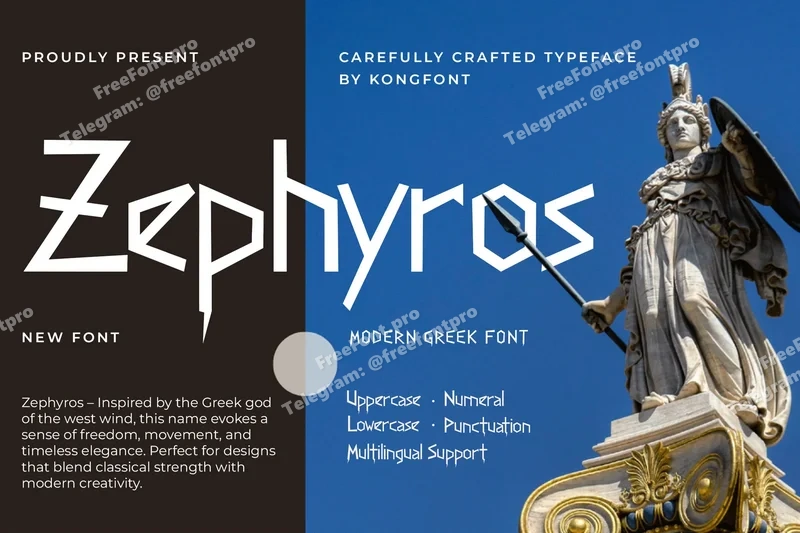
Zephyros – Modern Greek Font
Introducing Zephyros, a modern Greek font that captures the timeless beauty of ancient Greek lettering while infusing it with a sleek, contemporary touch. Inspired by the elegance of classical inscriptions and the sophistication of modern typography, Zephyros offers a refined and versatile design perfect for a variety of creative projects.
Its clean lines, balanced geometry, and subtle curves make Zephyros ideal for branding, editorial layouts, posters, and cultural designs. Whether used for titles, logos, or elegant text compositions, this font evokes a sense of heritage and artistry while maintaining a distinctly modern presence.
Perfect for designers seeking to blend tradition with innovation, Zephyros brings a touch of mythic beauty and timeless grace to every project.